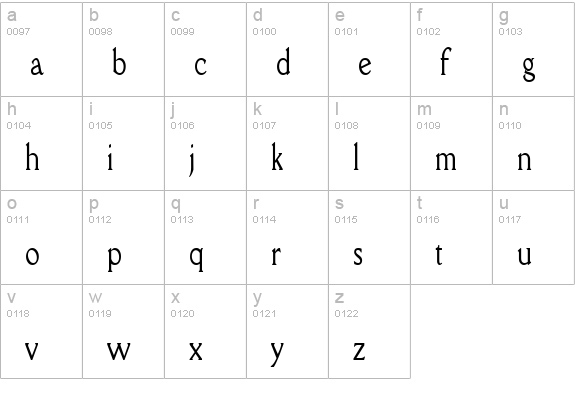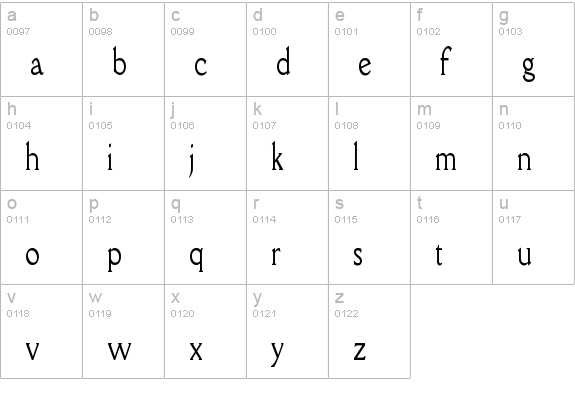
Rory Thin Normal is a delicate, low-contrast variant in the Rory typeface family \xE2\x80\x94 well suited to fashion editorial, minimal branding, and high-contrast display.
Rory Thin Normal font is a sleek and contemporary typeface that exudes elegance and sophistication. With its slender and delicate letterforms, Rory Thin Normal is perfect for creating a modern and refined look in various design projects. This versatile font is ideal for branding, logos, headlines, and more, adding a touch of grace and style to any visual composition. What's even better is that Rory Thin Normal font is available for free download at FontsMarket.com. So, whether you're a designer looking to enhance your creations or an individual seeking a stylish font for personal use, you can easily access this exquisite typeface without any cost. Don't miss out on the opportunity to elevate your designs with the timeless charm of Rory Thin Normal font, now conveniently and freely available for download.